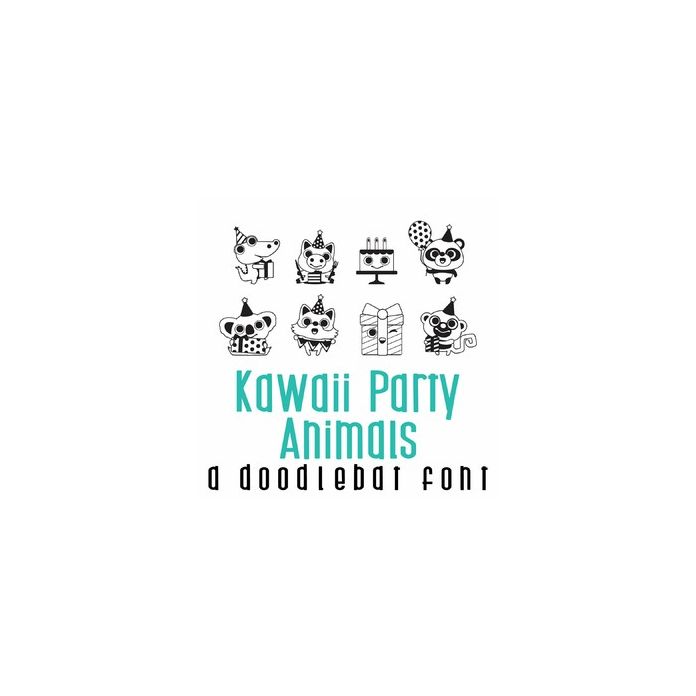
This adorable doodlebat font features kawaii-style party animals. Perfect for cards, crafts, gifts, decor, scrapbook pages, planner stickers, and more!